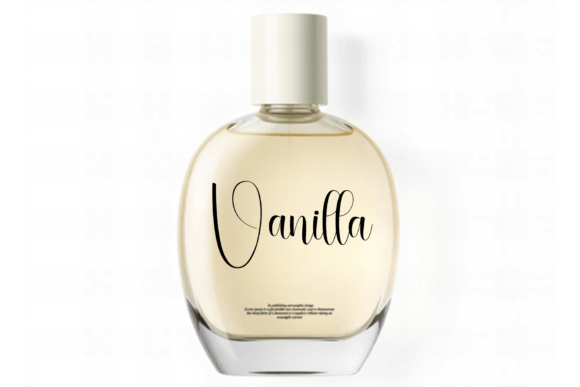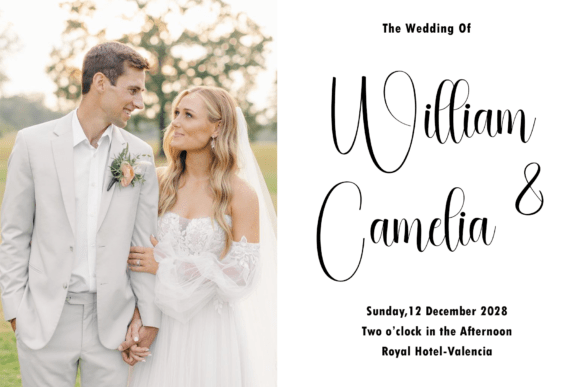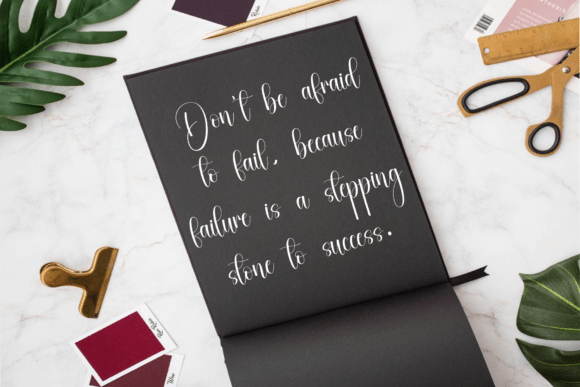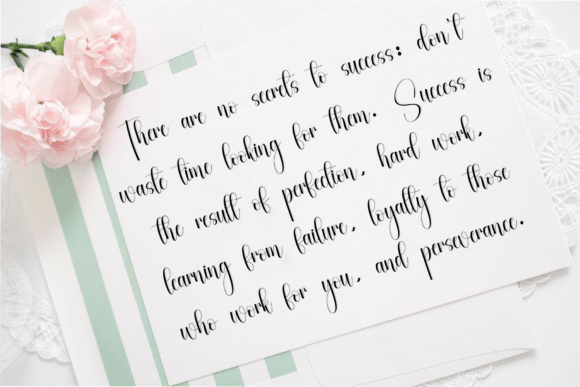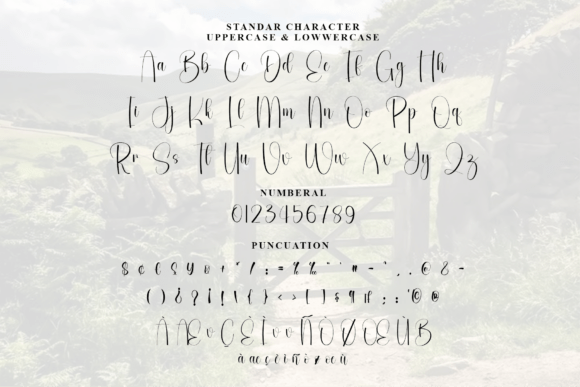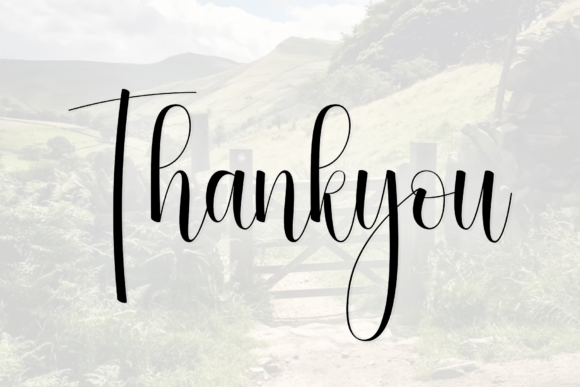
Introducing Gateaway Font: Elevate Your Design with Elegant Handwritten Script
Embark on a journey of elegant design with Gateaway, a stunning new style handwritten script font that captures the breezy, poetic spirit of travel and romance. This exquisite typeface is designed to add a touch of sophistication and artisanal charm to your creative projects, making it an extraordinary selection for designers and crafters seeking to make a lasting impression.
The Anatomy of Gateaway Font
Gateaway features an organic vertical script anatomy constructed with high-contrast, ink-brushed strokes that glide smoothly across the layout baseline. This unique characteristic gives the font its distinctive elegance and fluidity, perfect for conveying a sense of refinement and luxury. The high-contrast strokes also add a level of sophistication, making Gateaway suitable for a wide range of applications, from global travel vlogs to fine wedding invitations.
Gateaway is an incredibly versatile font, suitable for various design projects that require a touch of elegance and sophistication. Some of the ideal applications for Gateaway include:
- Global Travel Vlogs: Add a sense of adventure and wanderlust to your travel vlogs with Gateaway’s breezy and poetic style.
- Luxury Resort Branding: Elevate your resort’s brand identity with Gateaway’s sophisticated and refined aesthetic.
- Signature Organic Cosmetics Packaging: Give your cosmetics packaging a touch of artisanal charm and elegance with Gateaway.
- Boutique Fashion Logos: Create a lasting impression with Gateaway’s unique and stylish script font, perfect for boutique fashion logos.
- Fine Wedding Invitations: Make your wedding invitations truly special with Gateaway’s elegant and sophisticated design.
The Benefits of Gateaway Font
Gateaway delivers a profound sense of polished design intelligence and legendary artisanal grace to your creative assets, ensuring your text leaves a timeless impression. By using Gateaway, you can:
- Elevate Your Brand Identity: Add a touch of sophistication and elegance to your brand’s visual identity.
- Stand Out from the Crowd: Create unique and eye-catching designs that set you apart from the competition.
- Convey a Sense of Luxury: Use Gateaway to convey a sense of high-end quality and refinement in your designs.
Design Tips and Tricks
To get the most out of Gateaway, here are some design tips and tricks to keep in mind:
- Pair with Neutral Backgrounds: Allow Gateaway to take center stage by pairing it with neutral backgrounds that won’t compete for attention.
- Experiment with Colors: Try pairing Gateaway with a range of colors to create unique and eye-catching designs.
- Play with Typography: Experiment with different typography combinations to create visually appealing and engaging designs.
Gateaway Font is an exceptional addition to any designer’s toolkit, offering a unique blend of elegance, sophistication, and artisanal charm. With its organic vertical script anatomy and high-contrast, ink-brushed strokes, Gateaway is perfect for creative projects that require a touch of refinement and luxury. Whether you’re working on a global travel vlog, luxury resort branding, or fine wedding invitations, Gateaway is sure to elevate your design and leave a lasting impression.